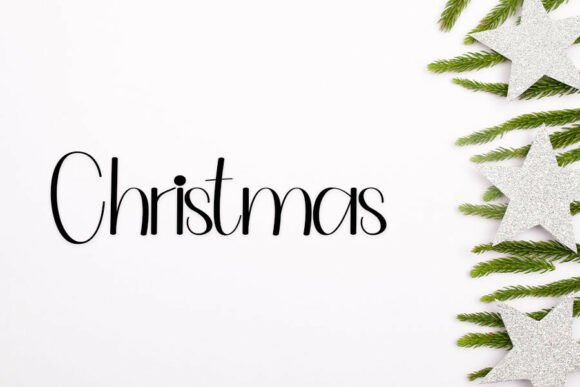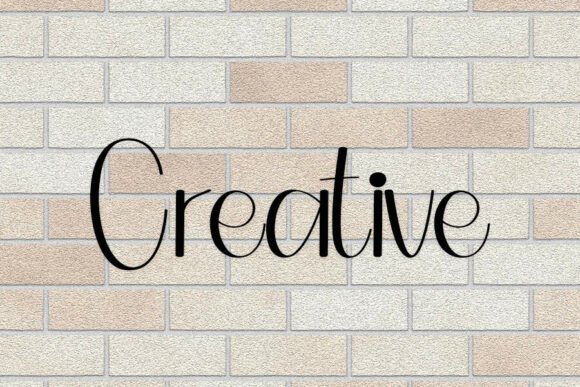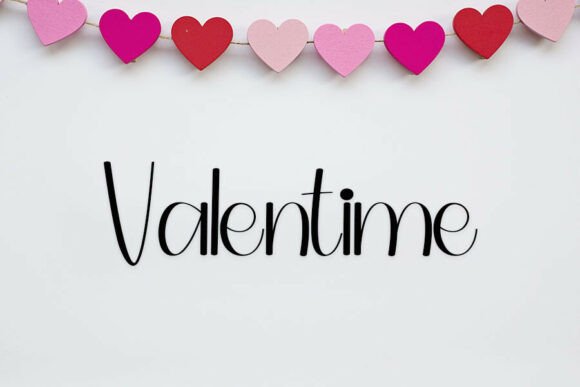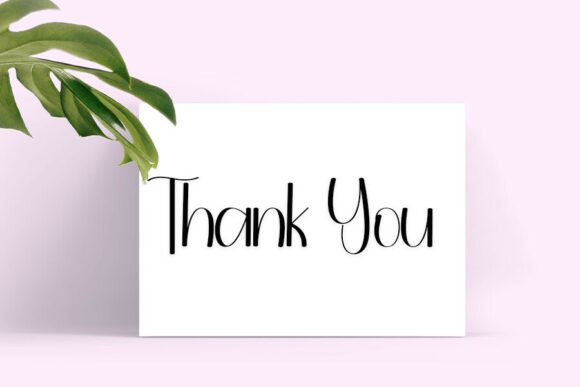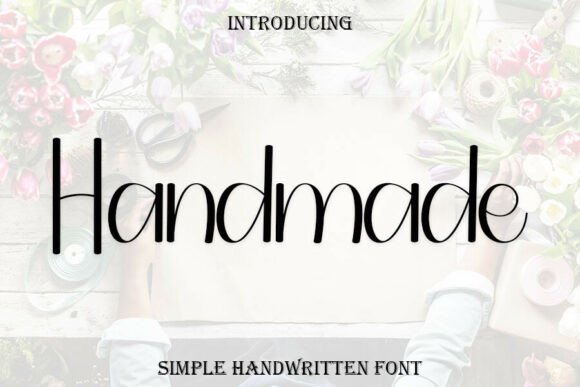
Introducing Handmade Font: The Sweet and Cursive Handwritten Font for Your Design Needs
Are you looking for a font that can add a touch of elegance and romance to your designs? Look no further than Handmade Font, a sweet and cursive handwritten font that is perfect for a variety of design projects. With its gentle and flowing curves, Handmade Font is sure to make your designs stand out and leave a lasting impression.
What Makes Handmade Font So Special?
Handmade Font is a unique and beautiful font that is designed to add a joyful and romantic touch to your designs. Its cursive and handwritten style gives it a personal and intimate feel, making it perfect for projects where you want to convey a sense of warmth and personality. Whether you’re designing a logo, creating a wedding invitation, or crafting a marketing promotion, Handmade Font is the perfect choice.
One of the best things about Handmade Font is its versatility. It can be used for a wide range of design projects, including:
• Branding: Use Handmade Font to create a unique and memorable brand identity that sets you apart from the competition.
• Logo Design: Create a stunning logo that showcases your brand’s personality and style.
• Wedding Designs: Add a touch of romance and elegance to your wedding invitations, programs, and other stationery.
• Greeting Cards: Create beautiful and heartfelt greeting cards for special occasions.
• Fashion: Use Handmade Font to create stunning fashion designs, including lookbooks and marketing promotions.
Why Choose Handmade Font?
There are many reasons why Handmade Font is the perfect choice for your design needs. Here are just a few:
• Elegant and Refined: Handmade Font has a sophisticated and refined feel that is perfect for designs where you want to convey a sense of luxury and elegance.
• Casual and Friendly: Despite its elegant feel, Handmade Font is still a casual and friendly font that is perfect for designs where you want to convey a sense of approachability and warmth.
• Highly Versatile: Handmade Font can be used for a wide range of design projects, from logos and branding to wedding designs and greeting cards.
• Easy to Read: Handmade Font is highly legible, making it perfect for designs where you need to communicate a message clearly and effectively.
Tips for Using Handmade Font
Here are a few tips for getting the most out of Handmade Font:
• Use it Sparingly: While Handmade Font is beautiful, it can be overwhelming if used too much. Use it sparingly to add a touch of elegance and romance to your designs.
• Pair it with Other Fonts: Handmade Font pairs beautifully with other fonts, including sans-serif and serif fonts. Experiment with different pairings to find the one that works best for your design.
• Experiment with Colors: Handmade Font looks stunning in a variety of colors, from soft pastels to rich jewel tones. Experiment with different colors to find the one that works best for your design.
In conclusion, Handmade Font is a beautiful and versatile font that is perfect for a wide range of design projects. Its elegant and refined feel, combined with its casual and friendly vibe, make it the perfect choice for designers who want to add a touch of romance and elegance to their designs. Whether you’re designing a logo, creating a wedding invitation, or crafting a marketing promotion, Handmade Font is the perfect choice.